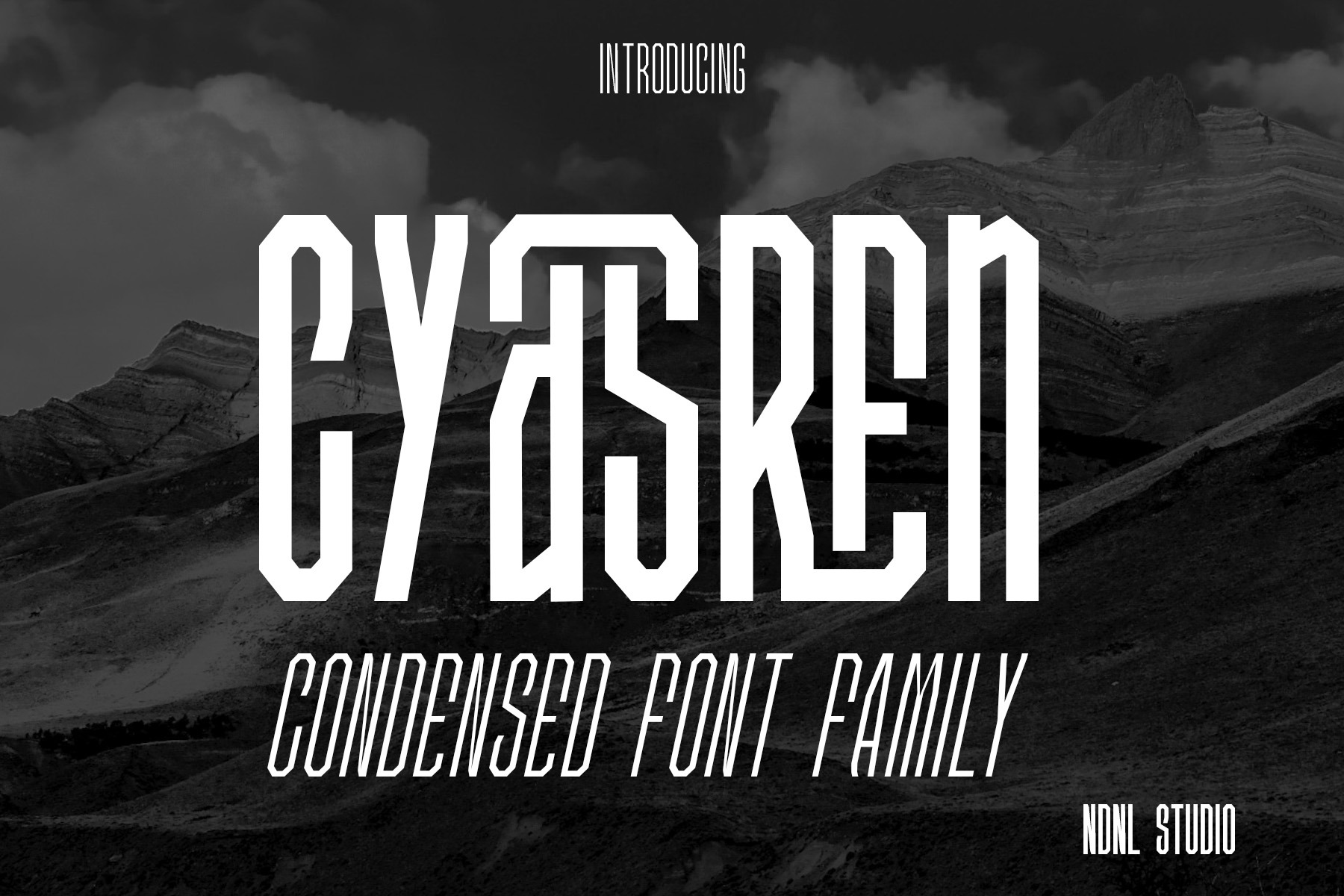
Cyasren – Geometric Condensed Font
Cyasren – Geometric Condensed Font is a versatile font designed to adapt beautifully across different design styles, offering dependable readability and balance. Cyasren is a bold condensed typeface that embodies a modern and distinctive aesthetic. With its narrow structure, sharp edges, and strong geometric presence, Cyasren delivers a striking and dynamic visual impact.
Perfect for headlines, posters, sports branding, fashion design, and futuristic or industrial-themed projects, Cyasren maximizes space while maintaining strong readability and identity. It’s designed to make your message stand out with confidence and style.